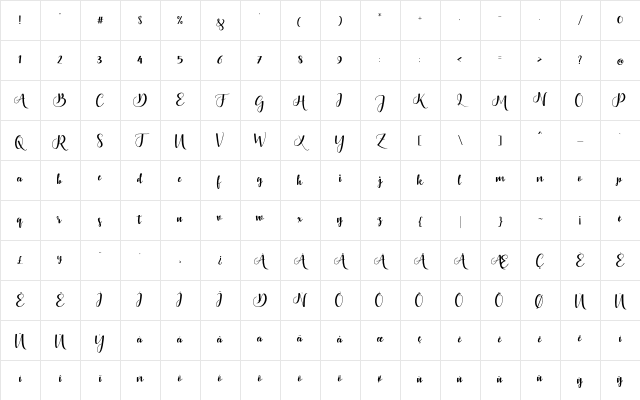
Complete Bontella Script Regular glyph index. Displaying only characters natively supported by Bontella Script Regular font.
Bontella Script flows with the natural rhythm of handwritten lettering, making it ideal for designs that call for warmth and personal expression.
Font Pairing: Combine Bontella Script with a simple geometric sans for maximum contrast - the tension between flowing curves and clean structure is a classic typographic pairing.
Pro Tip: Use Bontella Script for short runs of text - names, titles, or taglines. Extended body copy in script faces tires the eye quickly.